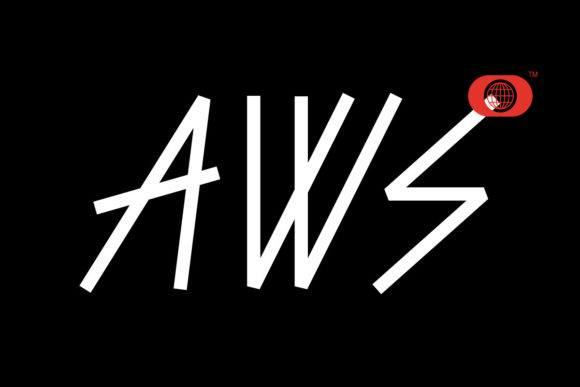
The Urban Edge: Unleashing the Power of AWS Font
An Honest Review: What I Love and What I Don’t
- ✨ **Modern and Urban**: AWS Font is a stunning display typeface that screams modernity and urban chic. It’s perfect for titles, logotypes, monograms, and short texts.
- ✅ **Highly Versatile**: This font can be used for a wide range of creative projects, from branding and advertising to packaging and web design.
- 💥 **Attention-Grabbing**: AWS Font has a unique ability to make your projects stand out from the crowd. Its bold and edgy design demands attention and leaves a lasting impression.
The Not-So-Good Stuff
- 🤔 **Limited Legibility**: While AWS Font is perfect for titles and short texts, it can be a bit tricky to read in longer paragraphs. Use it sparingly and for emphasis.
- ⚠️ **Glyph Limitations**: Some users have reported issues with certain glyphs not displaying correctly. However, this can be easily resolved by using the font’s OpenType features.
The Designer Inspiration Behind AWS Font
While the true story behind AWS Font remains a mystery, it’s clear that the designer was inspired by the urban landscape and modern typography. The font’s bold and edgy design is reminiscent of cityscapes, making it perfect for projects that require a touch of urban chic.
| Font Name | AWS Font |
| Author | Graphics by Srg |
| What is AWS Font best used for? | AWS Font is perfect for titles, logotypes, monograms, short texts, and other creative projects that require a modern and urban look. |
| Is AWS Font suitable for body text? | While AWS Font can be used for short paragraphs, it’s not ideal for longer body text due to its limited legibility. |
| Does AWS Font support OpenType features? | Yes, AWS Font supports OpenType features, including stylistic alternates, glyphs, and ligatures. |